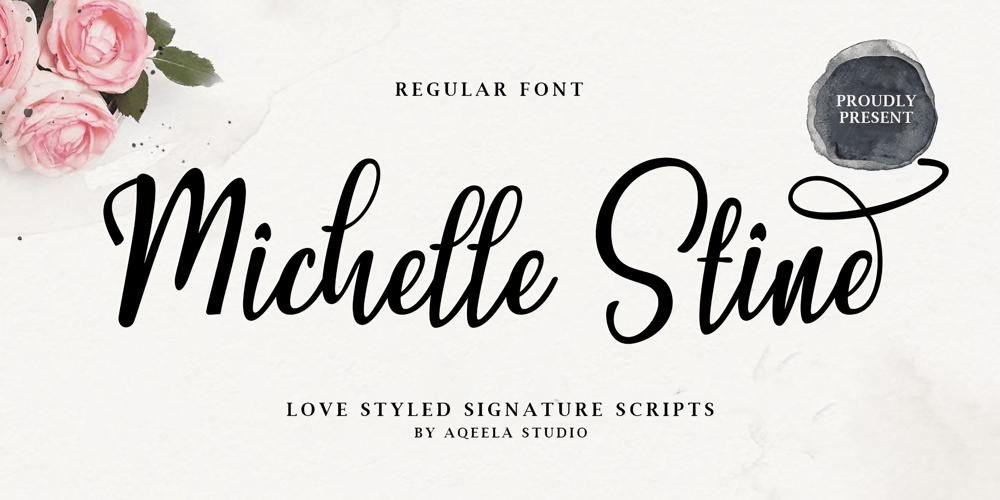
Michelle Stine Script Font Family was designed by Muhammad Nasir and published by Aqeela Studio. Michelle Stine Script contains 1 styles and family package options. Michelle Stine is a modern calligraphy font. It’s letters dance along the baseline which gives it a elegant touch. Michelle Stine can be used for various purposes such as logos, wedding invitations, heading, t-shirts, letterheads and much more!